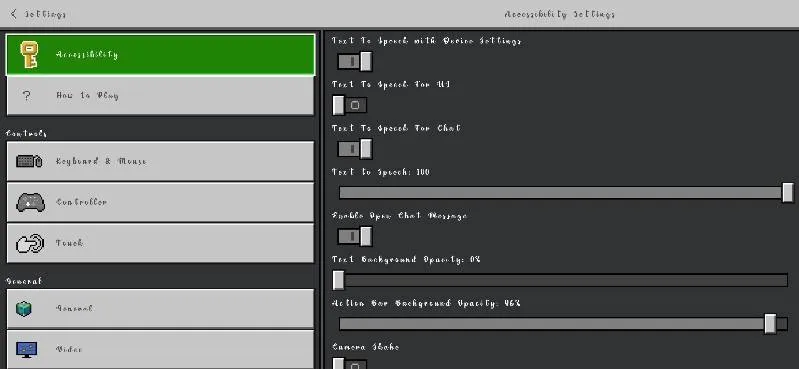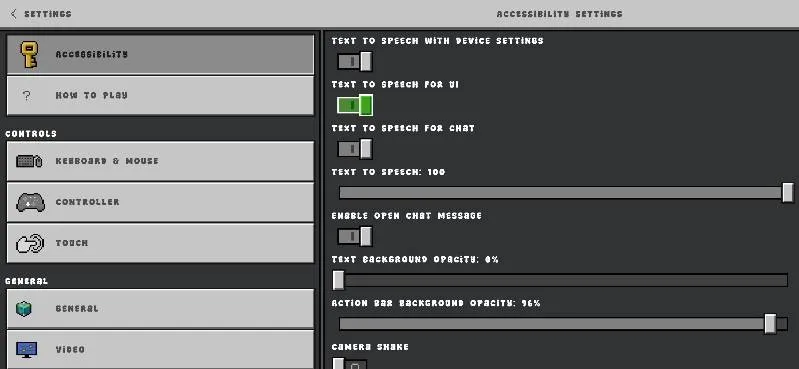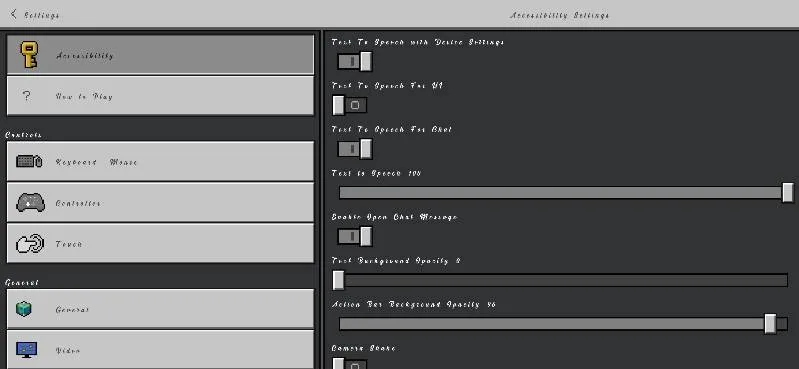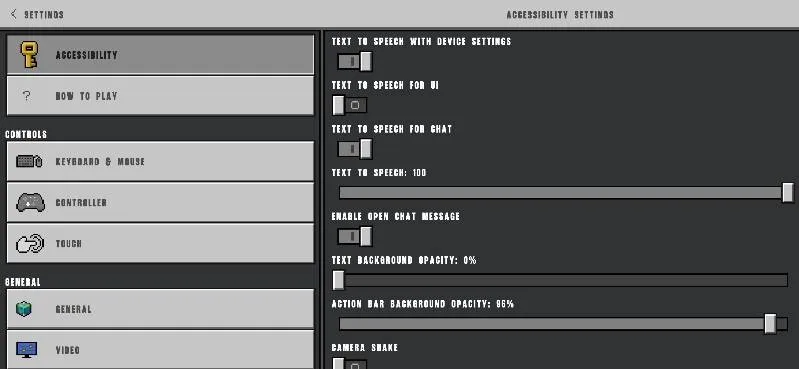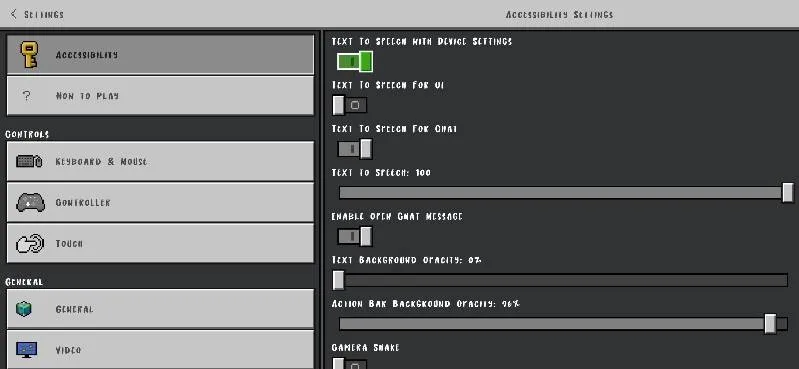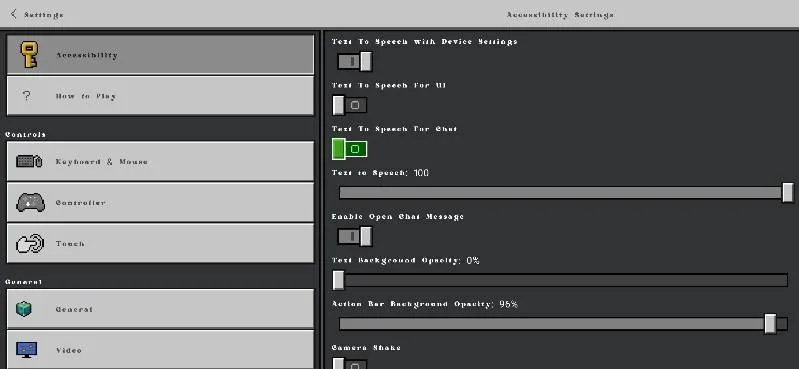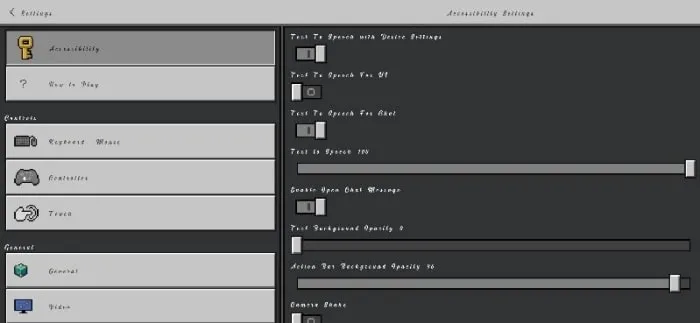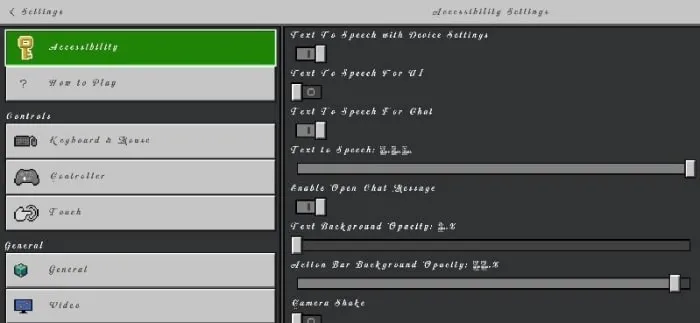
Stylish Fonts
15+ stylish, modern fonts for Minecraft Bedrock. Enhance your menus, chat, and UI with smooth, lightweight fonts compatible with all devices.
Stylish Fonts – Minecraft Bedrock Font Pack
Transform your Minecraft world with the ultimate Stylish Fonts Pack!
Give your UI, chat, and menus a complete visual makeover with 15+ uniquely designed fonts, handcrafted to enhance your Minecraft Bedrock experience. Whether you're a casual player, map maker, or content creator, this pack delivers an elevated look that fits every style — from modern minimalism to retro pixel art and bold statement text.
• 15+ Handpicked Stylish Fonts: Each font is carefully selected to give your gameplay a distinct and refreshing look. You'll find a mix of modern, clean, pixel, gothic, and script fonts.
• Enhanced UI & Chat Appearance: Perfect for menus, signs, titles, and in-game chat. Makes your communication and navigation stand out with clarity and style.
• High-Resolution & Smooth Rendering: Optimized for all screen sizes and resolutions, including FHD+, UHD, and tablets. Clean lines, no pixelation, and seamless integration.
• Perfect for Roleplay, PvP, and Creators: Whether you're hosting a server, making a cinematic world, or just want a fresh look, these fonts add personality and immersion.
Modern font settings menu with sleek text
ALT Menu with modern, stylish font options
ALT text Modern fonts in accessibility menu
Settings menu with modern, smooth fonts
ALT text Modern pixel font in game settings menu
Settings menu with modern, smooth fonts
ALT Accessibility settings menu with new fonts
Settings menu with modern, clean fonts